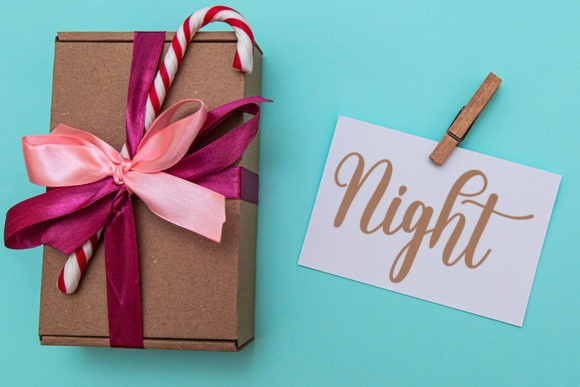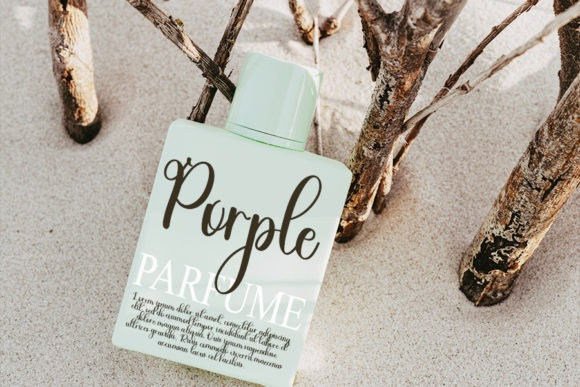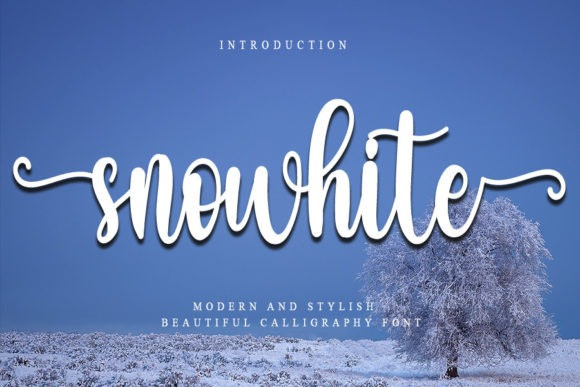
Snowhite Font
Snowhite Font is a gorgeous and bold handwritten font. It reads as confident and dynamic and can add tons of nostalgic character to your designs. This font is PUA encoded which means you can access all of the amazing glyphs and ligatures with ease!